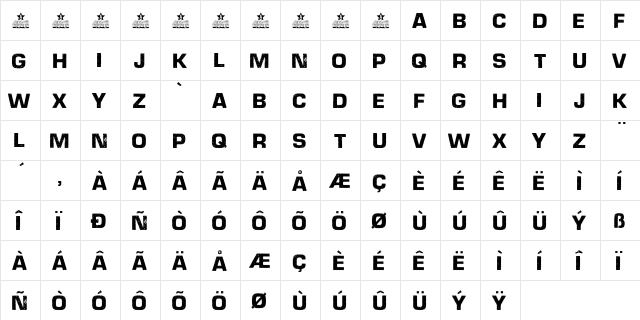
DIESELPOWER PERSONAL USE Regular
| Foundry | Billy Argel |
| Designer | Billy Argel |
Design Context for DIESELPOWER PERSONAL USE Typeface
DIESELPOWER PERSONAL USE brings high-energy athletic personality to the page — its confident, muscular forms are built for impact.
A natural choice for gym brands, fantasy sports, jersey lettering, and action-driven headlines.